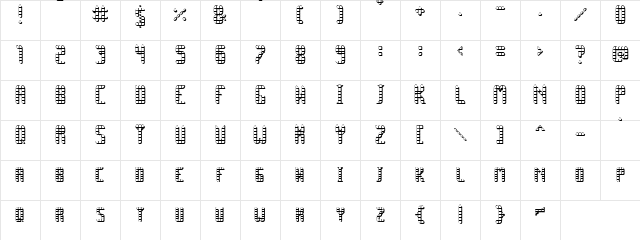
SPACE PEZ 3D Free Font
SPACE PEZ 3D
Style: 3D
Foundry: Nils von Blanc (www-nils-von-Blanc.de)
Designer: Nils von Blanc
Complete SPACE PEZ 3D glyph index. Displaying only characters natively supported by SPACE PEZ 3D font.
Design Context for SPACE PEZ
SPACE PEZ is a composed and adaptable typeface that performs quietly and consistently across a wide range of design contexts.
Who designed the SPACE PEZ 3D font?